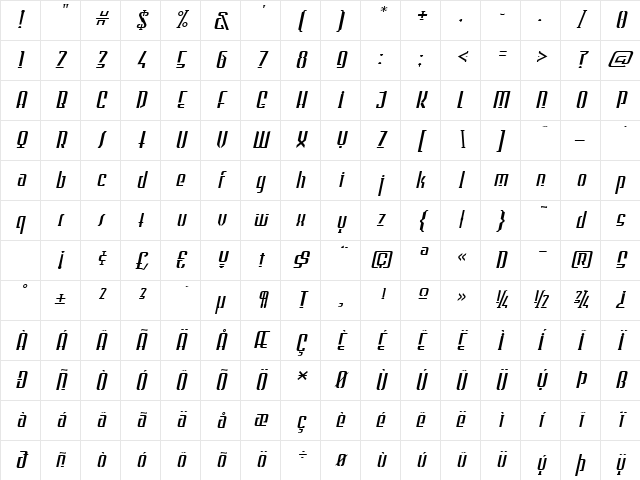
Complete WILD1 Firstvision Tekkst Bold Italic glyph index. Displaying only characters natively supported by WILD1 Firstvision Tekkst Bold Italic font.
WILD1 Firstvision Tekkst is a composed and adaptable typeface that performs quietly and consistently across a wide range of design contexts. The slanted form adds forward momentum and visual energy. Its bold stroke weight gives it real presence on the page.
Pro Tip: Use WILD1 Firstvision Tekkst for emphasis, pull quotes, and subheadings where its slanted energy can add rhythm to the layout.